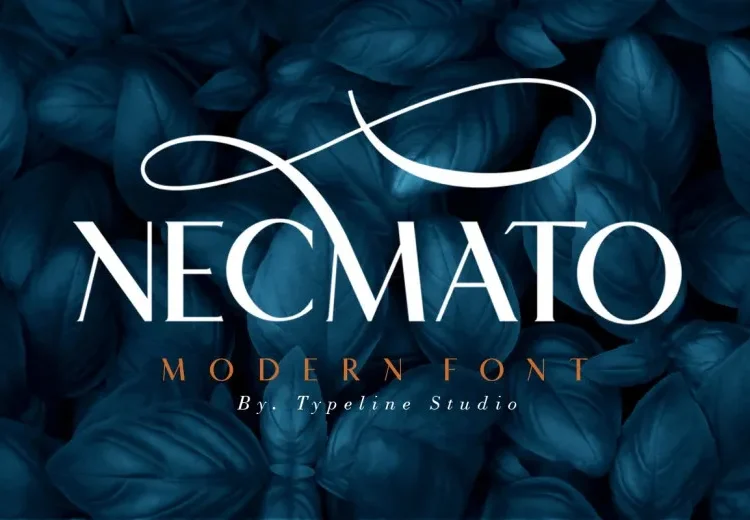
Necmato Font
Necmato is a versatile allcaps serif typeface designed to blend timeless elegance with contemporary appeal. Featuring two distinct styles—regular and italic—it adapts effortlessly to a range of design needs. From bold logos and artistic prints to eye-catching collages and readable body text, Necmato shines across diverse creative projects. Its minimalist structure paired with subtle vintage undertones makes it a perfect choice for those seeking a balance between classic and modern aesthetics.
This typeface has been embraced in various design genres, including art deco-inspired works and sleek modern layouts, thanks to its sophisticated yet approachable style. Whether you’re crafting branding materials, editorial layouts, or digital assets, Necmato’s clean lines and striking character offer an impeccable touch to elevate your designs.